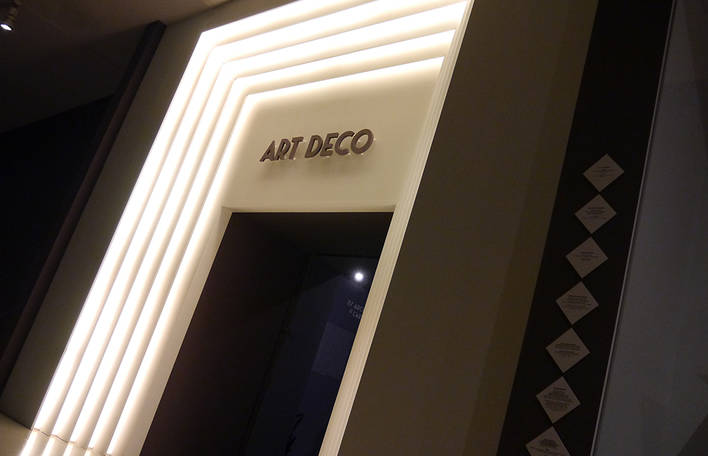
A complete graphic creative work for the exhibition « 1925, when Art Déco dazzled the World » at the french national museum for Architecture in Paris. The graphic designers of Graphica.fr create a new typeface especially for the event, inspired by the graphic language of the period (1915-1925), showing that this style is always current. The typeface is used to signage the entire exhibition, the graphic team creates also wallpapers, carpet designs and patterns decals.